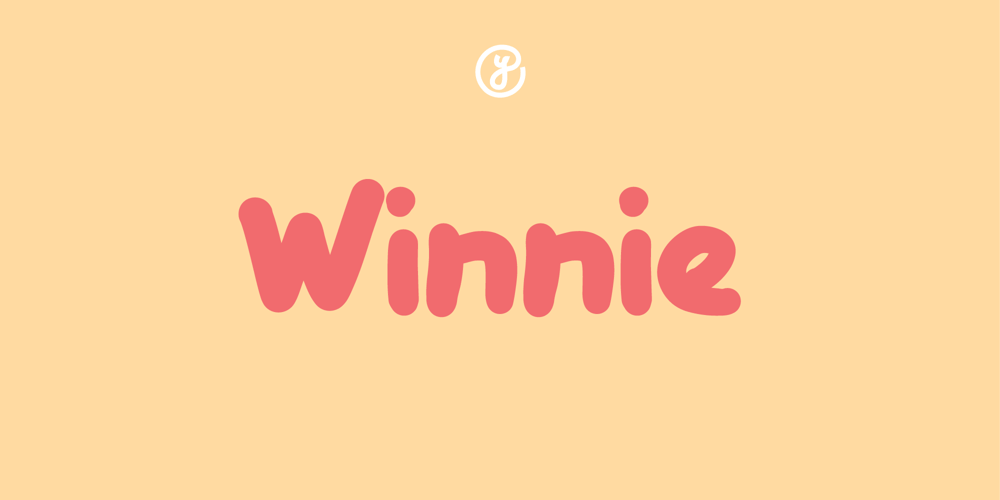
Winnie
Winnie font
Winnie Font Family was designed by Untung Prasetyo and published by Yebhu. Winnie contains 1 styles and family package options. Winnie is a type of font that captures the playful and heartwarming charm of a beloved childhood character from those cherished storybooks. This font embodies the same cozy and friendly vibe, reminiscent of adventures in a world full of imagination. It’s round, soft, and ever-so-slightly plump—just like the character that inspired its name! While I’m not someone who spends hours rereading old storybooks these days (though they were undeniably delightful), I couldn’t help but fall for the name Winnie when designing this cheerful, chubby typeface. Perfect for projects needing a touch of warmth and nostalgia!